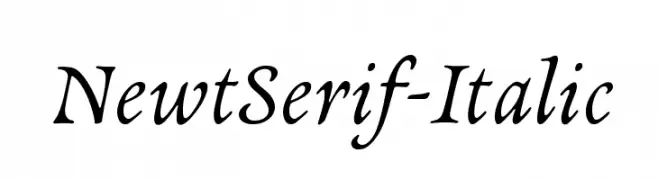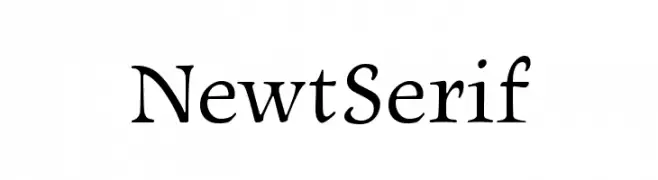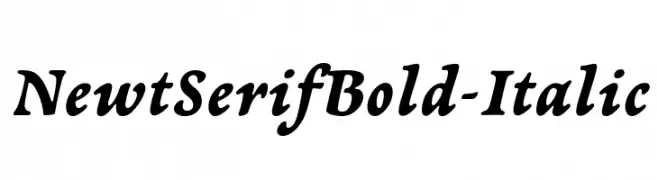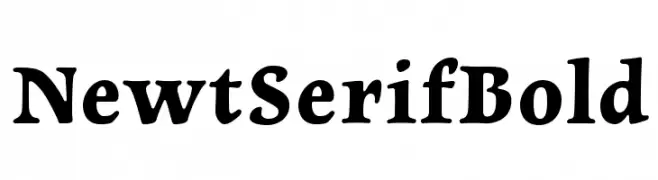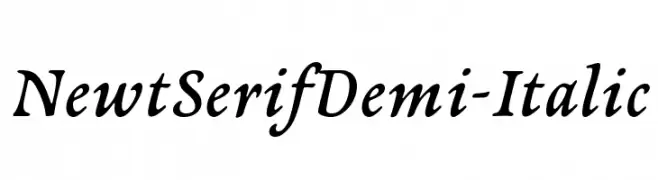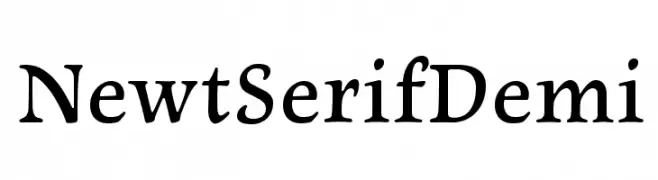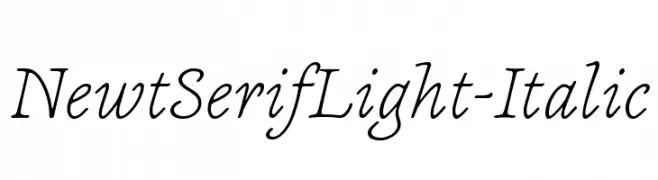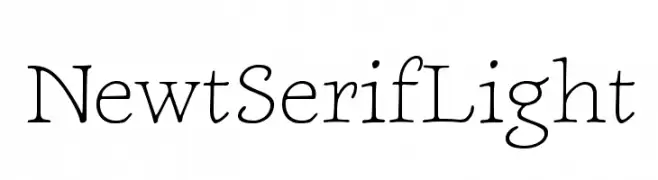
A classic serif font with elegant curves and sharp serifs, ideal for traditional and sophisticated designs.
An elegant serif font with a classic italic slant and refined details.
A bold serif font with strong, classic strokes and a traditional aesthetic.
A bold, italic serif font with a classic yet modern appeal.
A classic serif font with bold, elegant curves and strong presence.
Elegant serif font with italic styling and moderate contrast.
A light, elegant serif font with a classic yet modern aesthetic.
An elegant serif font with a flowing italic style and light strokes.